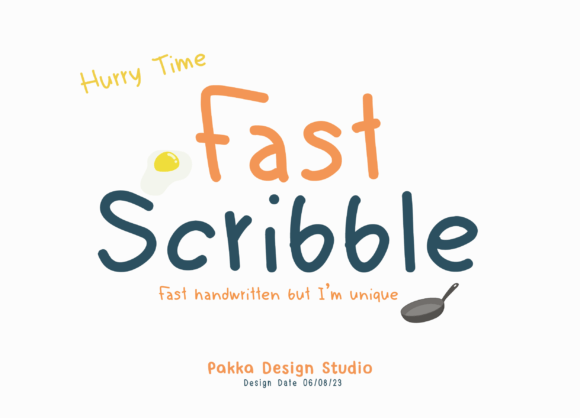
Fast Scribble Font: A Whirlwind of Creative Expression That Captivates and Inspires
Experience the exhilaration of a hasty morning, captured in the vibrant strokes of the Fast Scribble Font. This captivating script font, meticulously crafted by Pakka Design Studio, transports you to a world of quick bites and on-the-go meals, where time seems to fly by in a delightful frenzy. Each letter, meticulously scribbled with a sense of urgency, mirrors the rush of a busy morning, infusing your designs with a dynamic energy that captivates and inspires.
The Fast Scribble Font is not just a font; it's an artistic expression that evokes the lively spirit of breakfast hurry time. Its playful rush adds a touch of whimsy to your projects, making it the perfect choice for designs related to kids, morning routines, or anything that embodies the vibrant energy of a hasty breakfast.
Picture your designs adorned with the Fast Scribble Font, where words dance with a sense of urgency, conveying a message of playful rush. It's as if each letter is hurriedly scribbled onto the page, capturing the essence of a speedy breakfast, where moments are fleeting and every bite counts.
With the Fast Scribble Font, your designs will radiate with a dynamic energy that draws your audience in, captivating their attention and leaving them wanting more. Whether it's a playful logo, an engaging social media post, or a vibrant website header, the Fast Scribble Font adds a touch of magic that transforms the ordinary into the extraordinary.